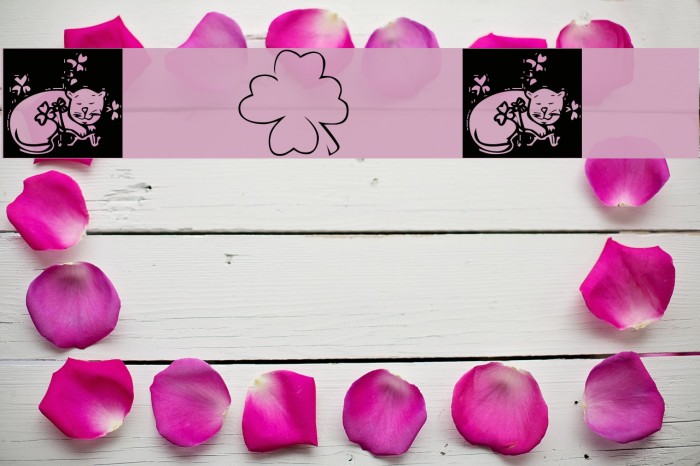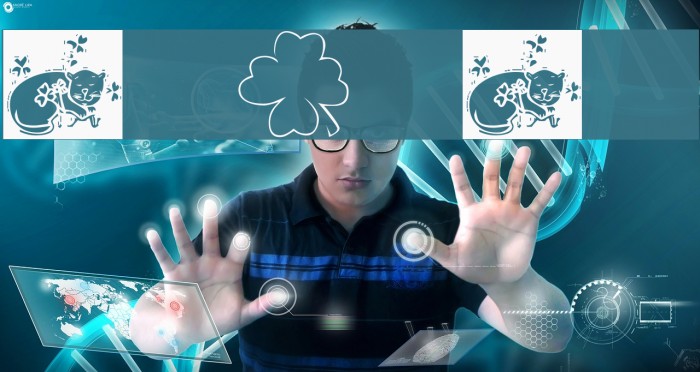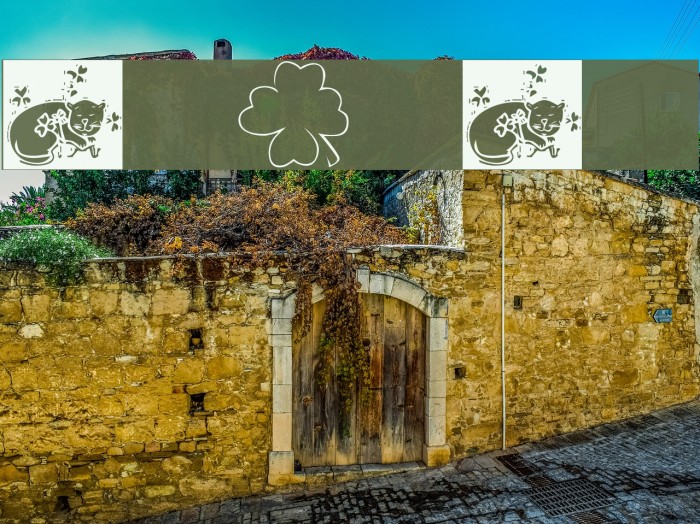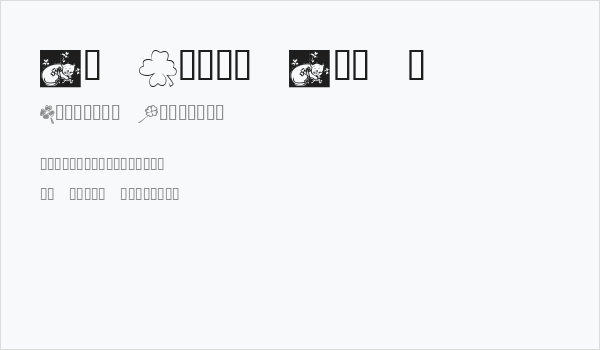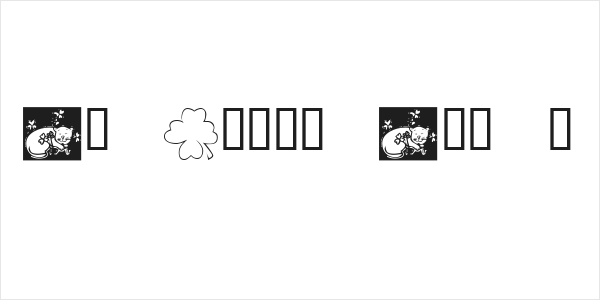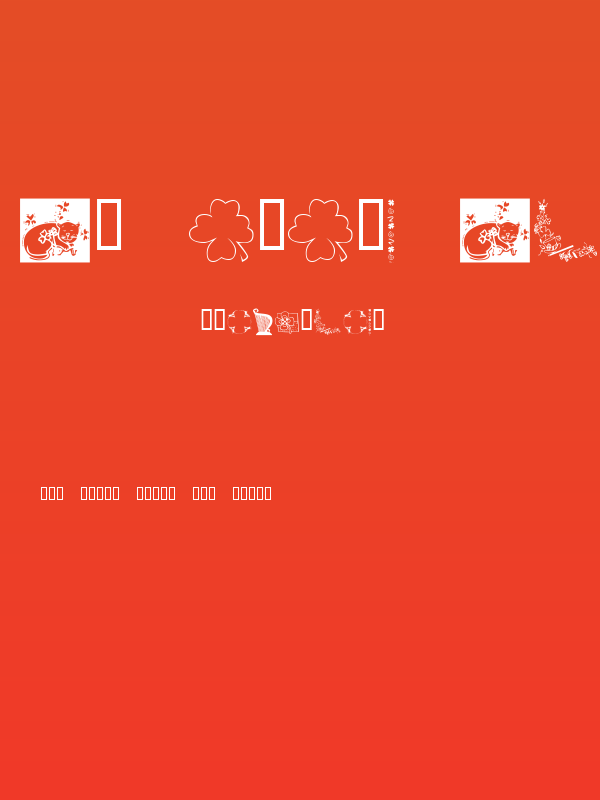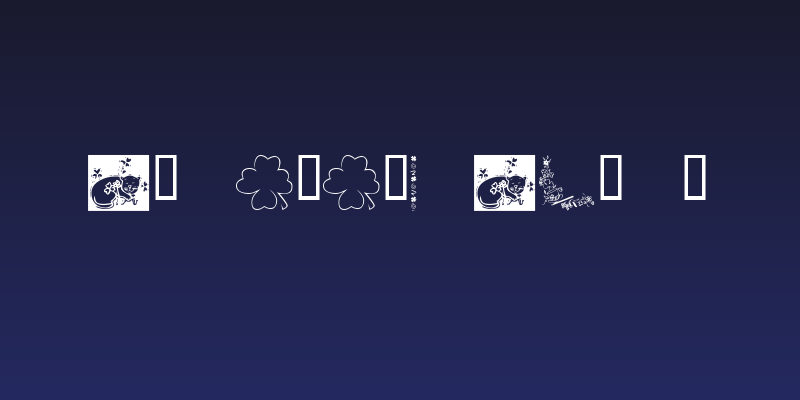
KR Irish Kat 3 Font
KR Irish Kat 3 Description
This set of decorative symbols is inspired by Irish themes, featuring a variety of playful and whimsical icons such as shamrocks, harps, and leprechauns. Each character is uniquely designed to convey a sense of fun and celebration, often associated with Irish culture and festivities. The symbols are bold and distinct, making them ideal for adding a touch of Irish charm to any project. The designs are detailed, with some incorporating intricate patterns and others maintaining a more simplistic, bold outline. These elements can be used to create a festive atmosphere, perfect for themed events or holiday decorations.
| Use Case | Logos, Headlines, Decorative elements |
| Proposed Projects | Ideal for St. Patrick's Day decorations, themed party invitations, festive banners, and cultural event promotions. |